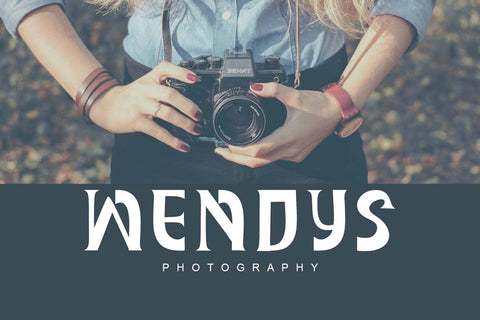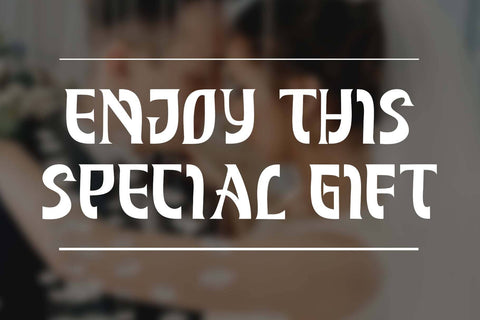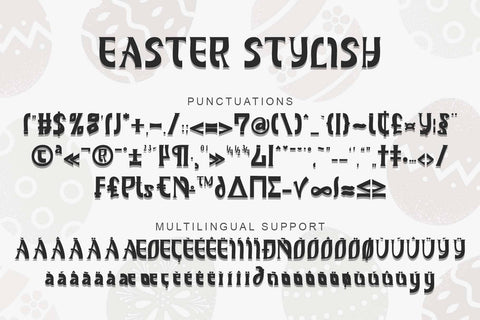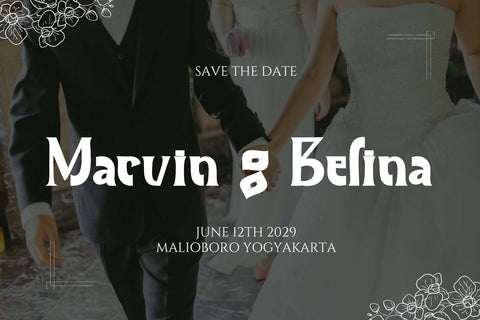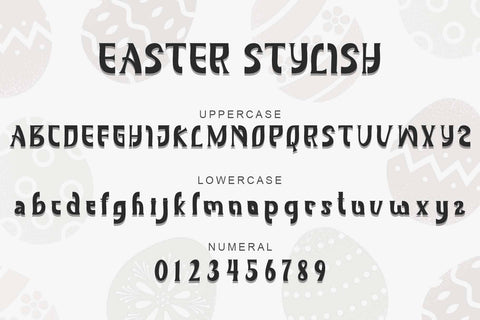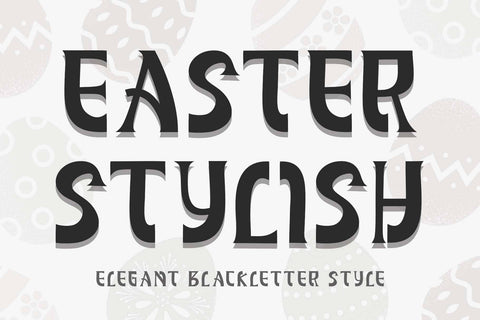
Easter Stylish
"Easter Stylish" is an elegant and unique blackletter font. This font is equipped with uppercase, lowercase, numerals, punctuations and multilingual support. Very suitable for use for easter, st patrick's day, spring, summer, print, poster, branding, sticker, logo, business branding, social media and others.